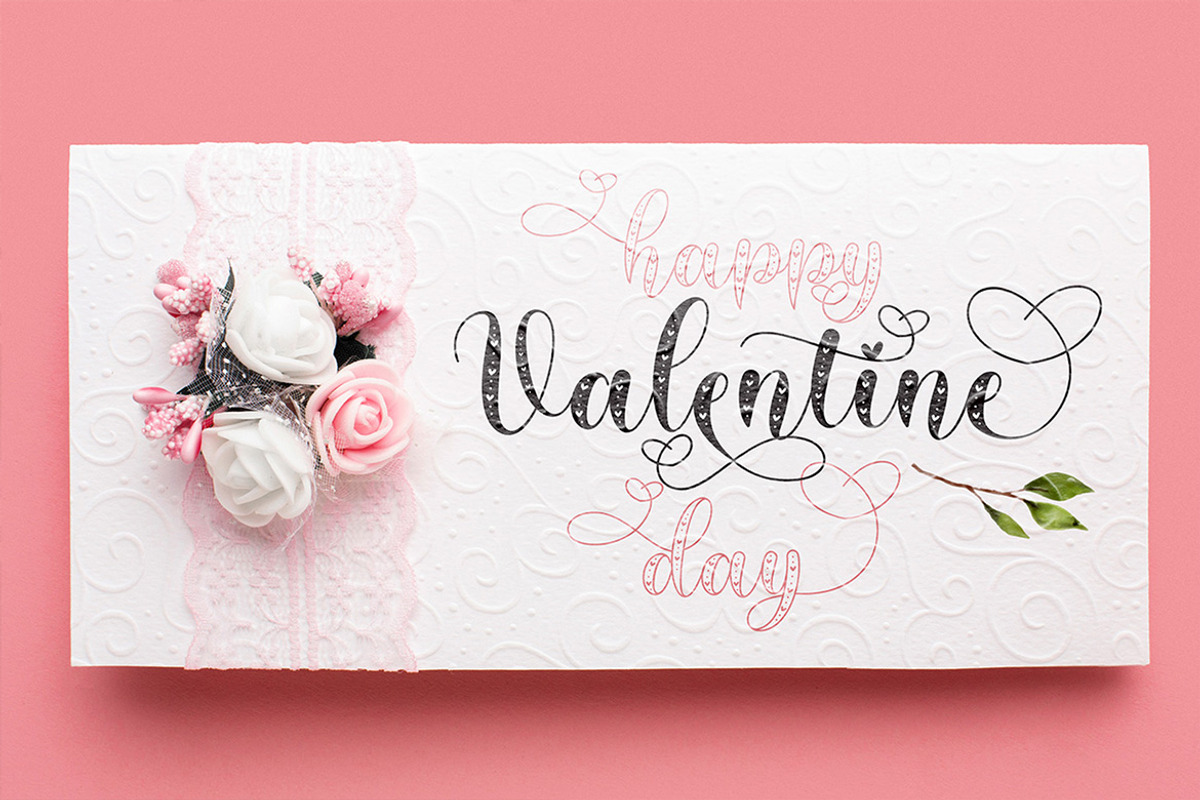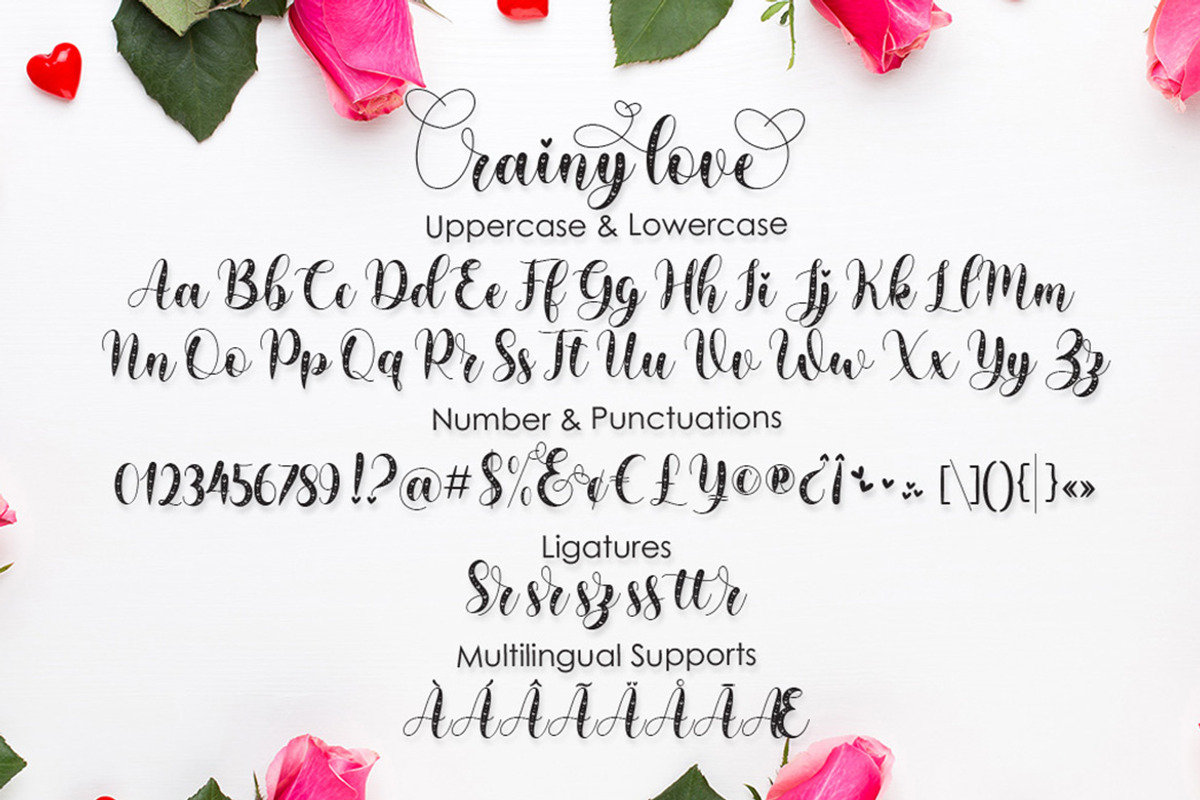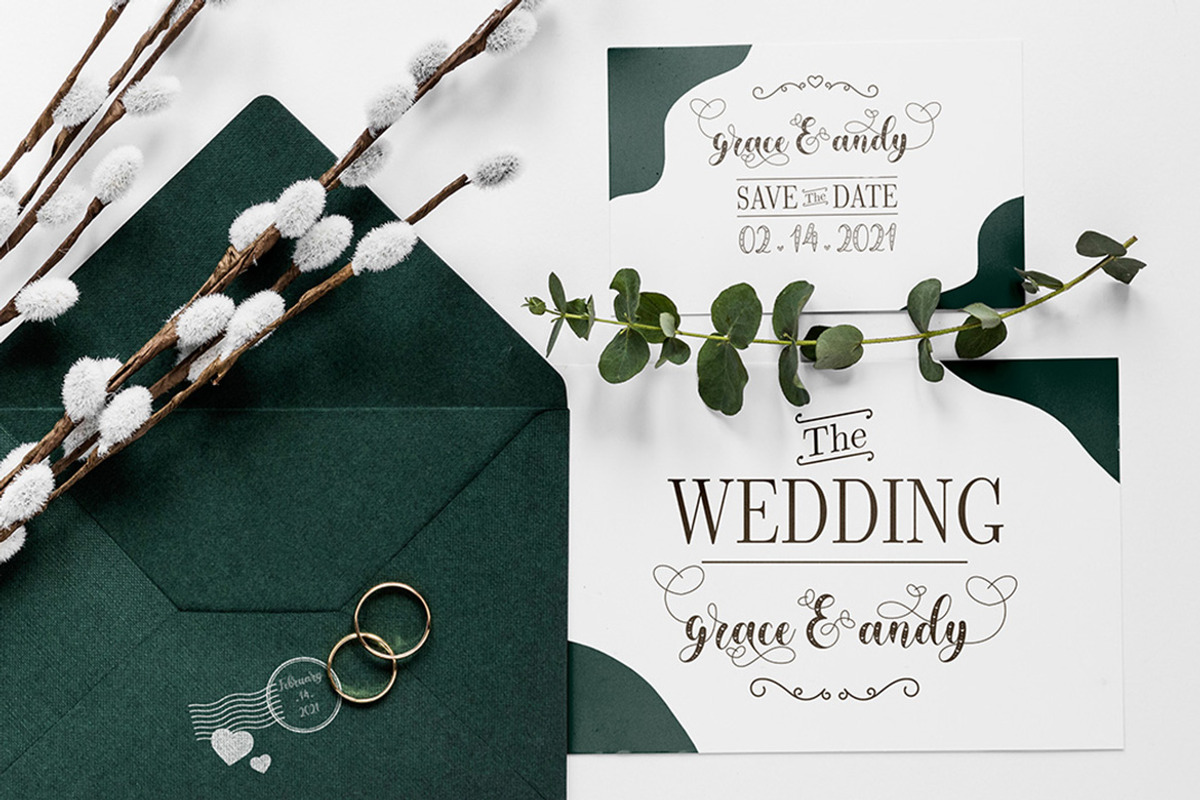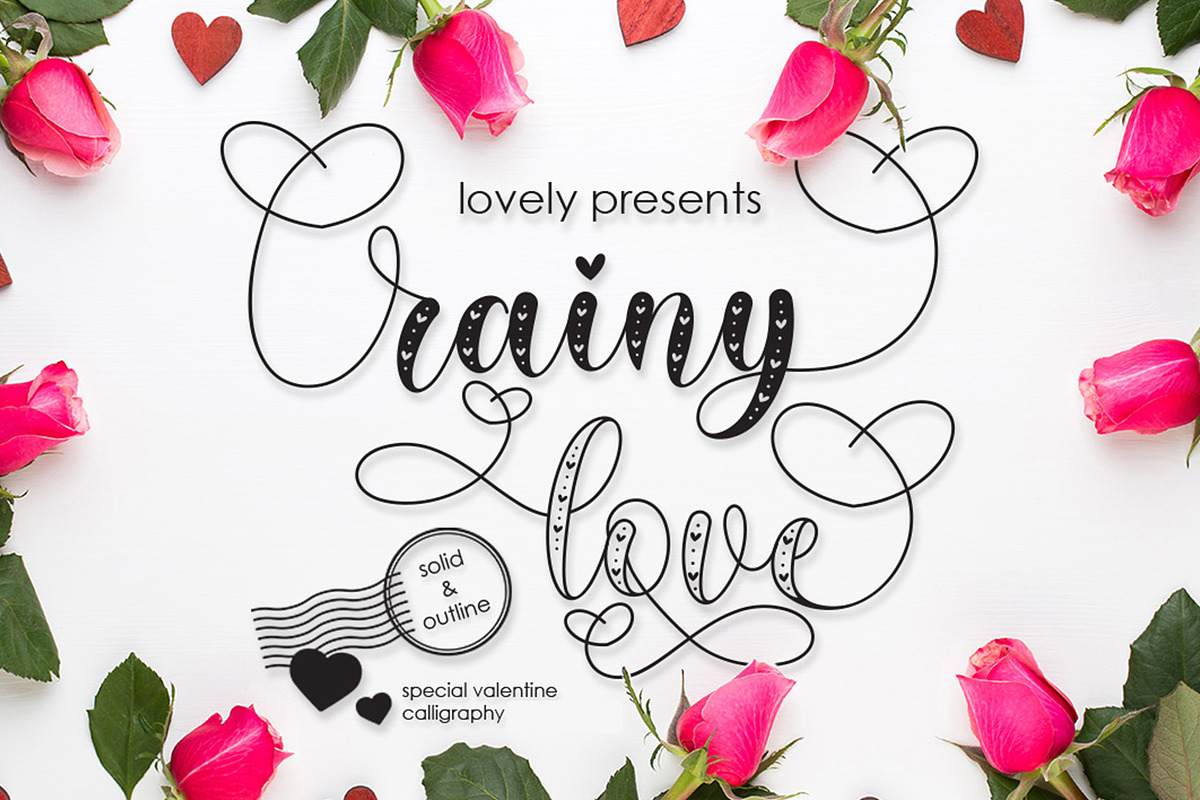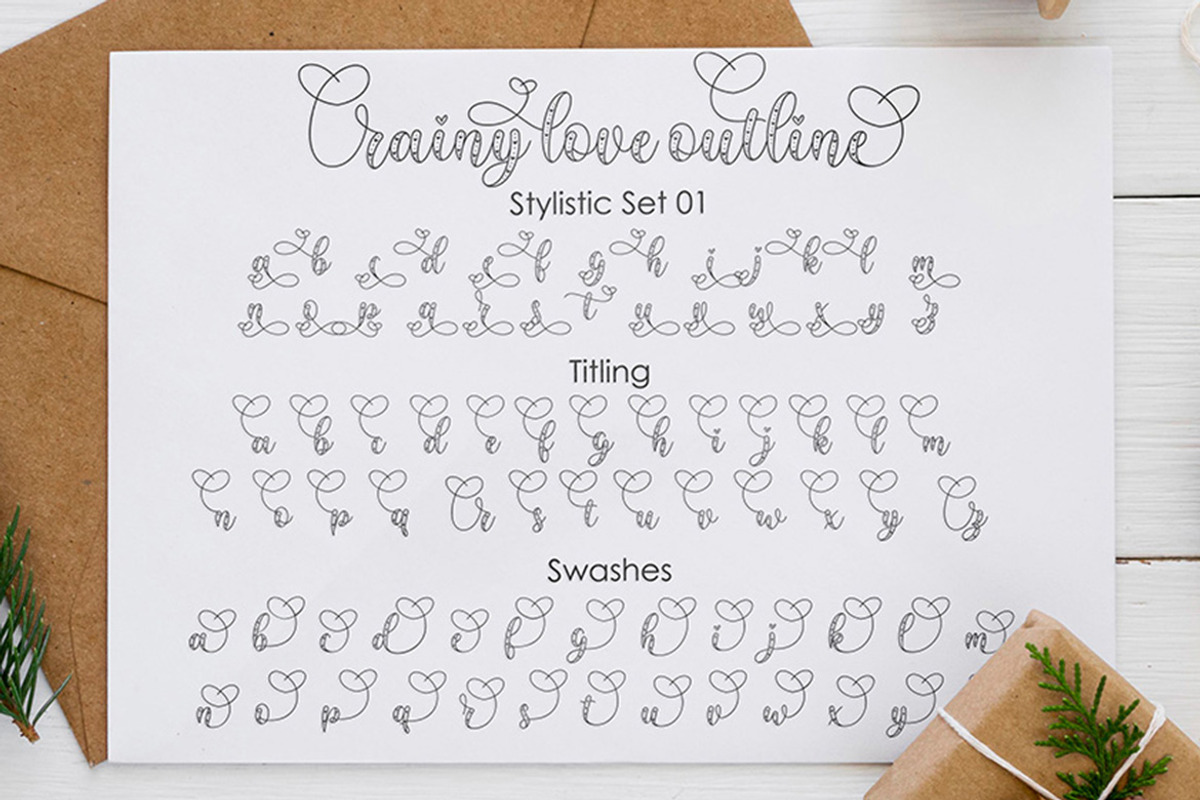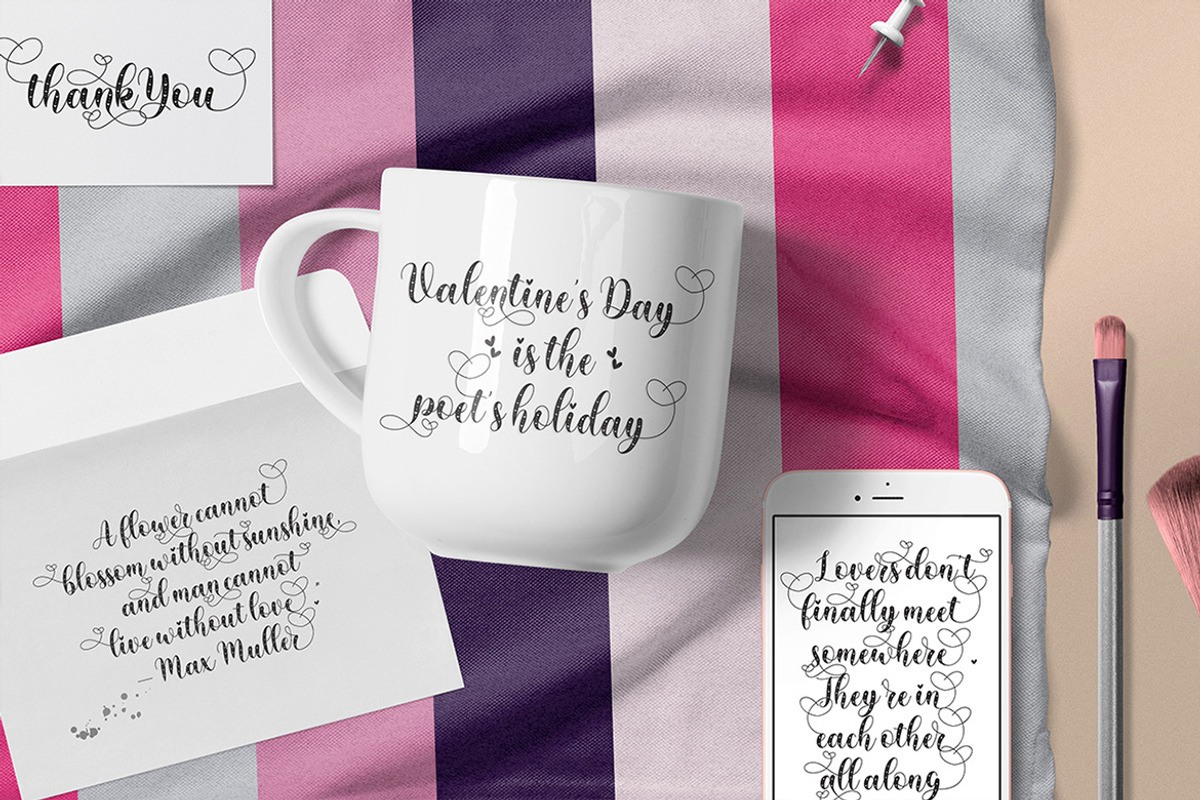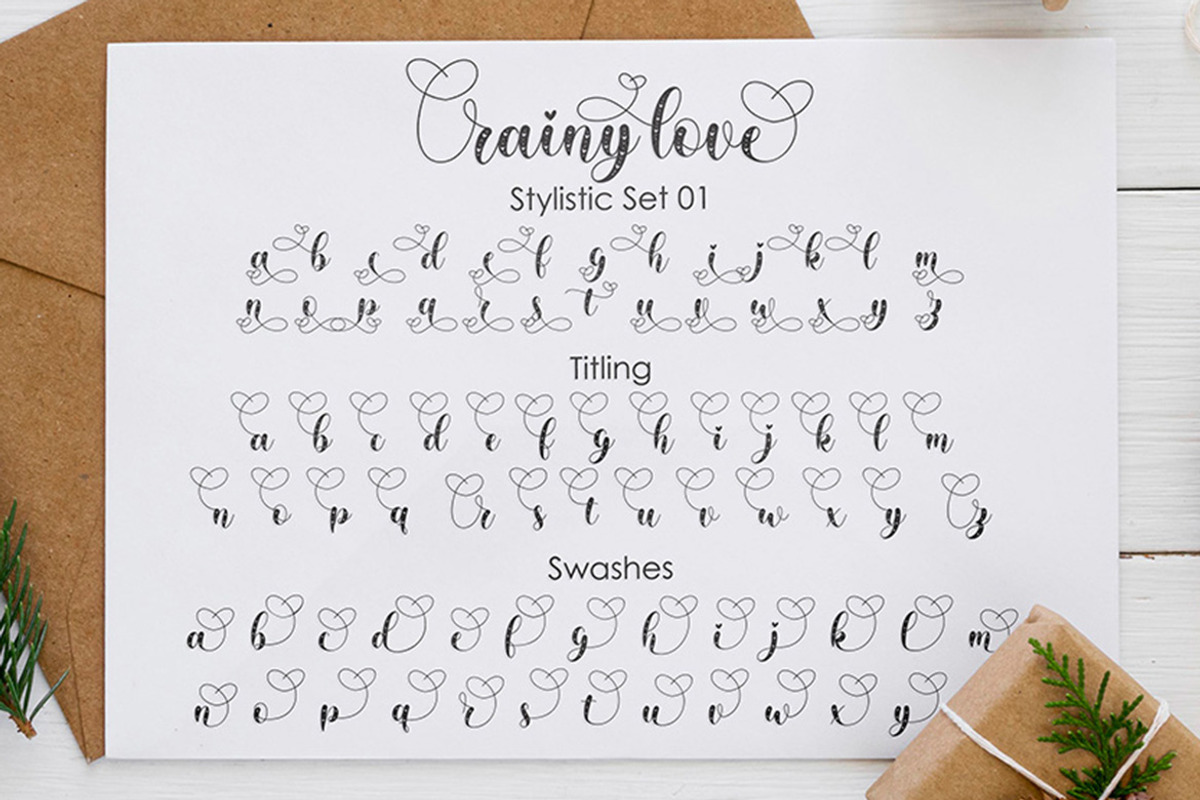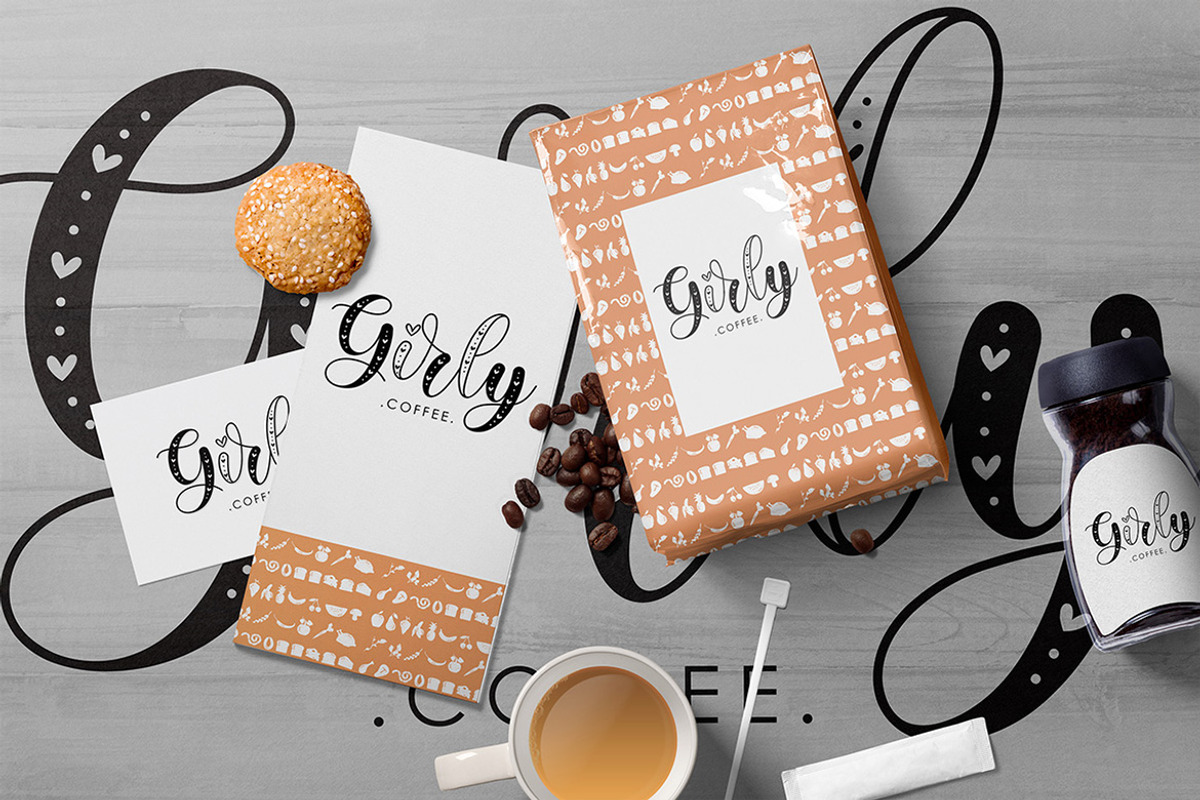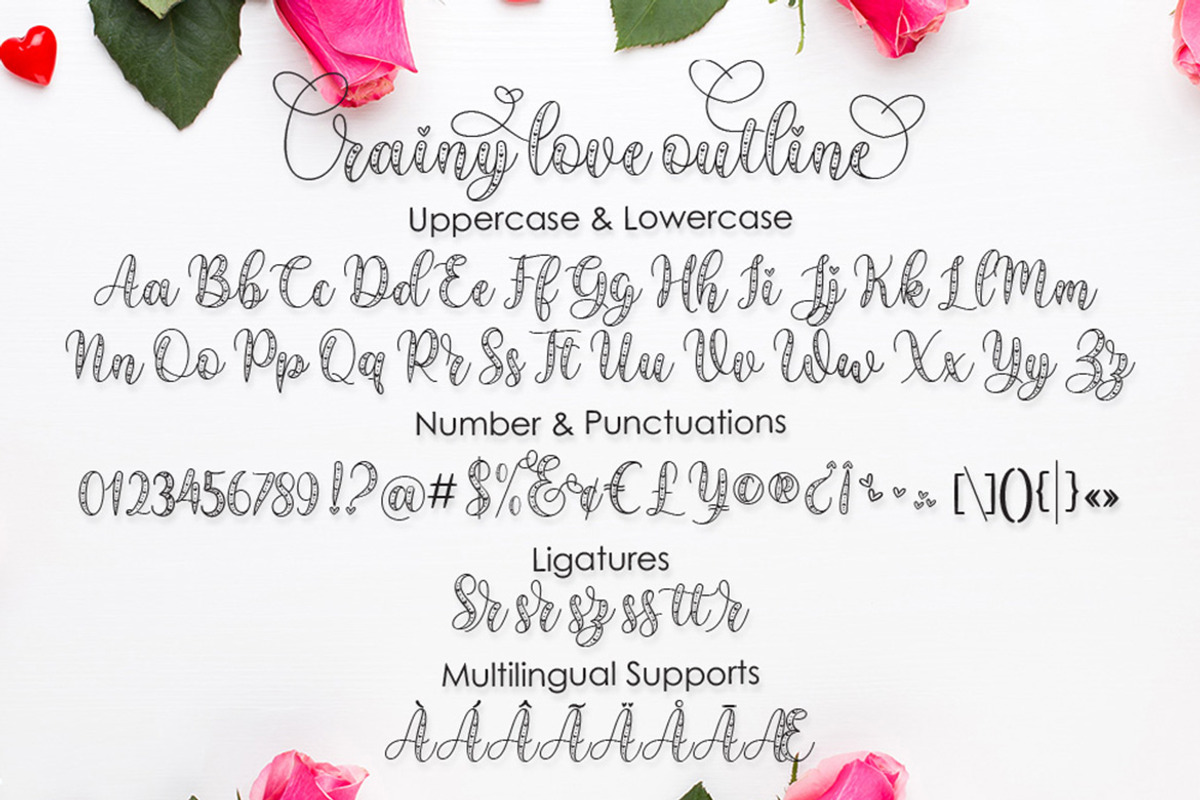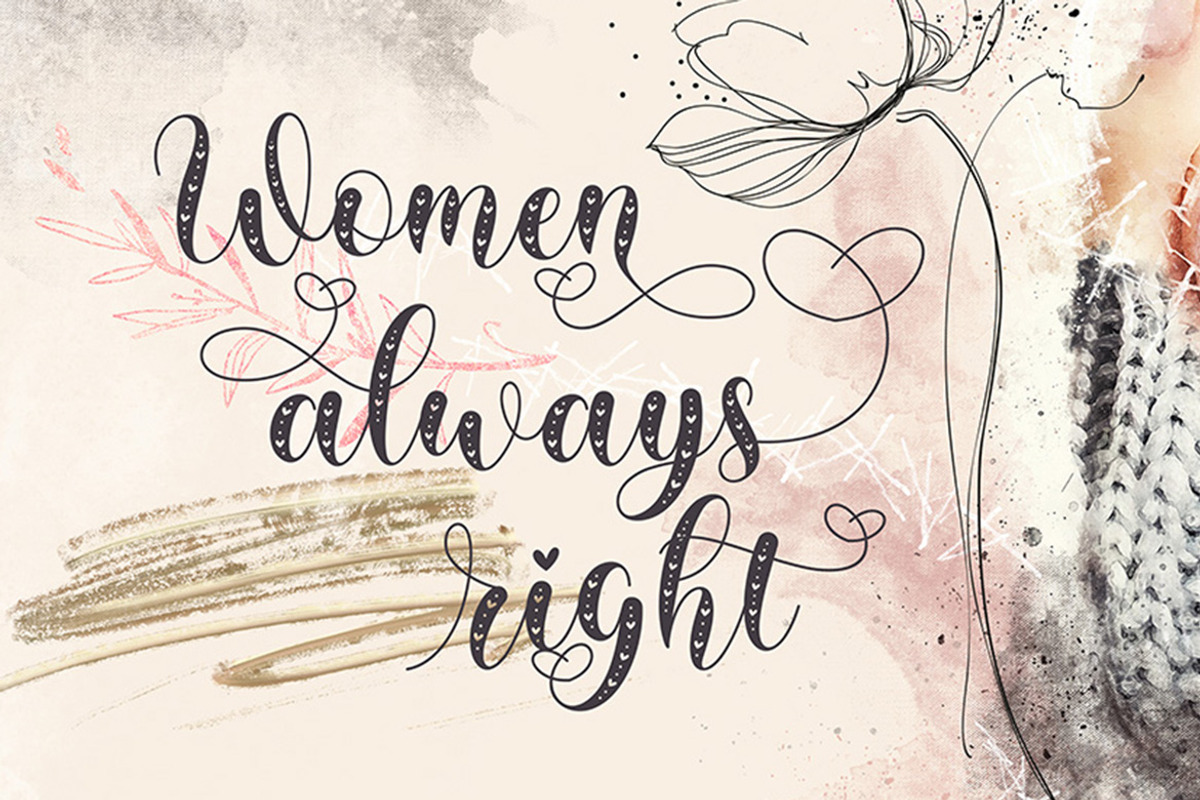
Rainy Love | Lovely Calligraphy
Rainy Love is a lovely calligraphy that bring luxury feel. The natural hand writing script is suitable for you who needs a typeface for valentines day, quotes, headline, logotype, wedding invitations , branding, packaging, advertising, watermark, etc. This typeface is comes with two version : solid & outline, in uppercase, lowercase, punctuations, symbols & numerals, stylistic set alternate, ligatures, etc also support multilingual.